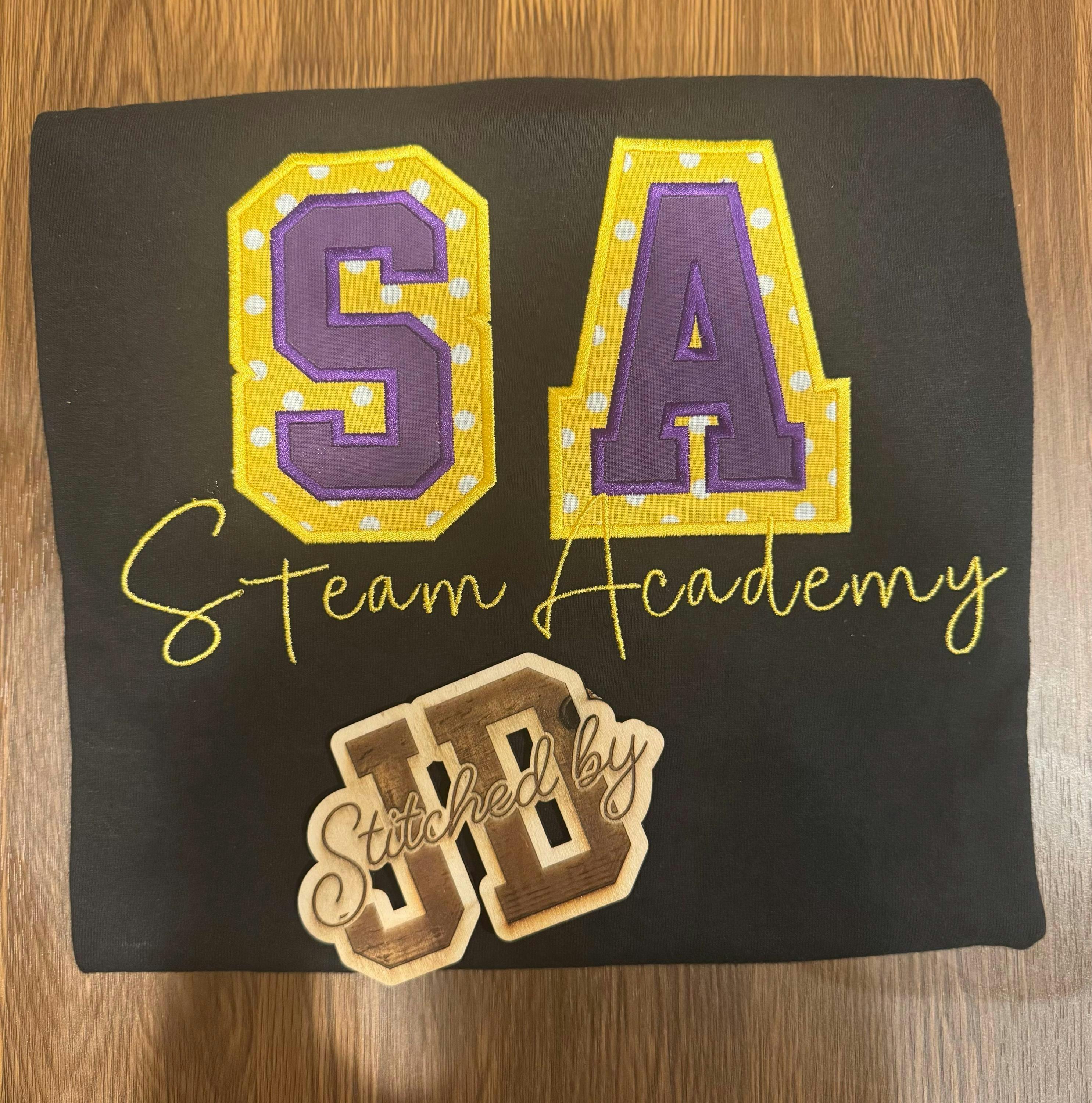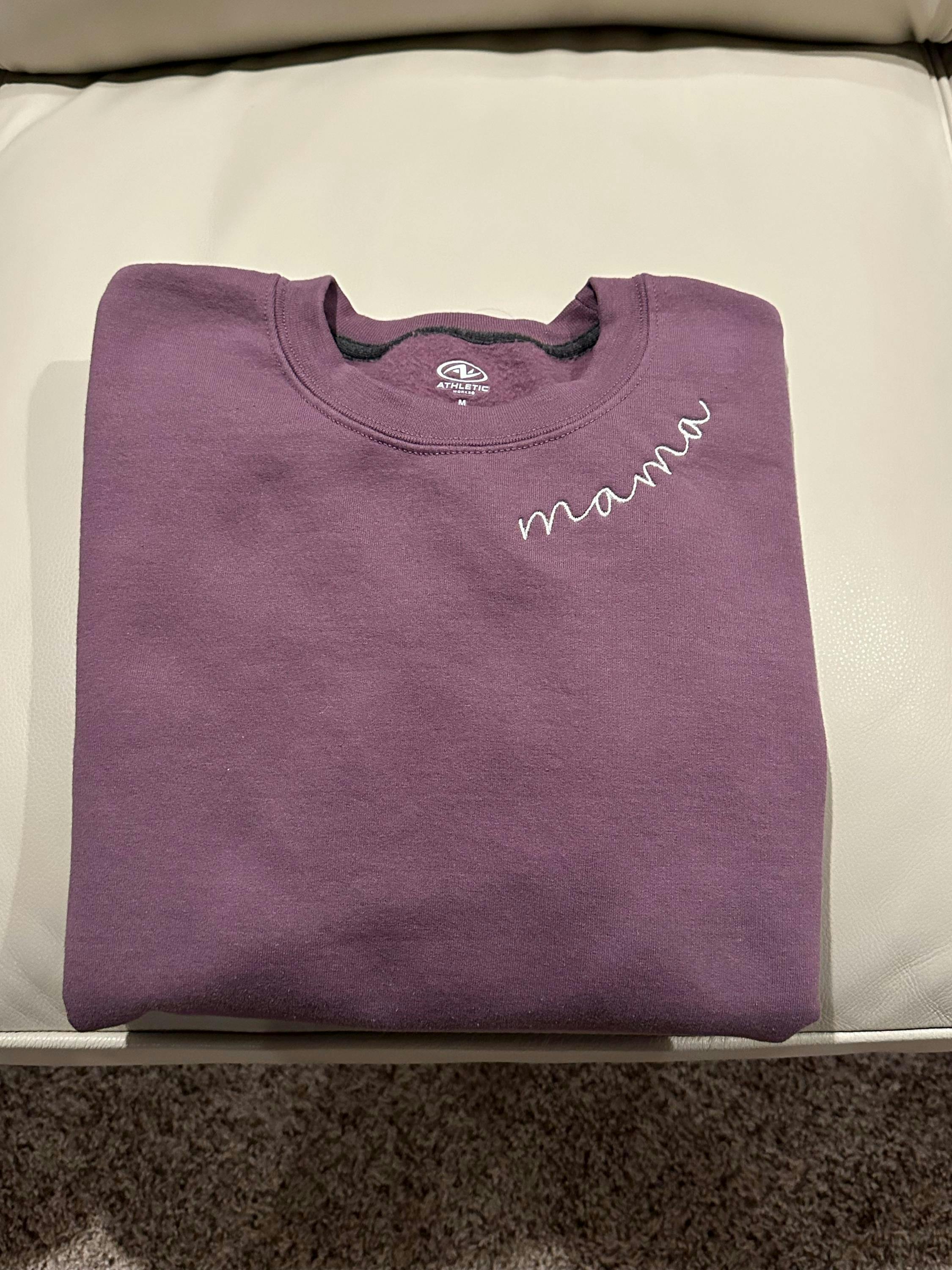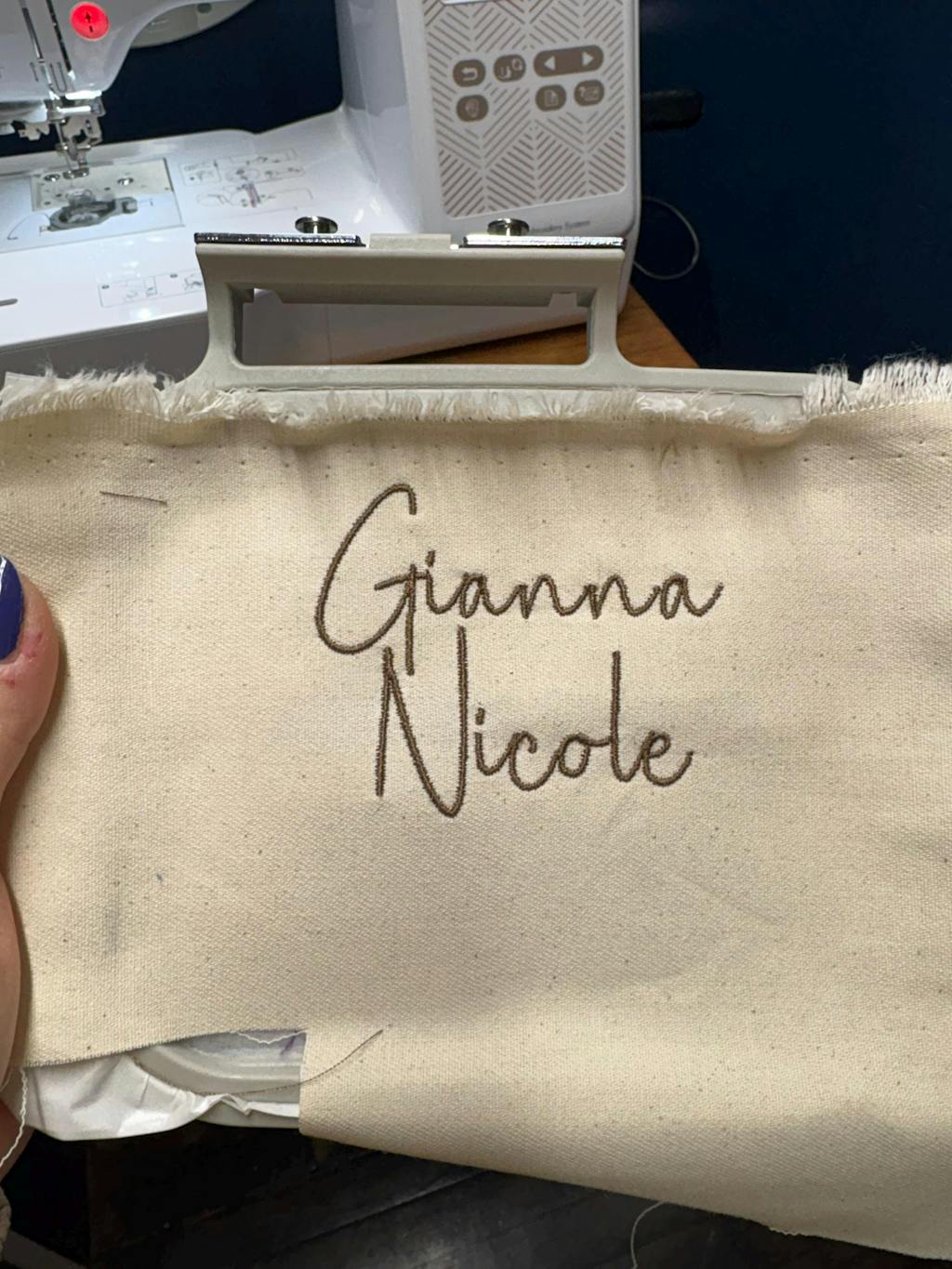
Photograph of Daydream embroidery font
Photograph of Daydream embroidery font alphabet
Daydream Digital Embroidery Font
Introducing Daydream embroidery font, the perfect addition to your creative toolkit. With its intricate and elegant design, Daydream allows you to add a touch of whimsy and charm to any project. Whether you're creating personalized gifts, embellishing clothing, or adding a special touch to your home decor, Daydream is sure to make your designs stand out. This machine embroidery font is easy to use and produces beautiful results, giving you the confidence to take your embroidery to the next level. Let your imagination run wild and create your own dreamy masterpiece with Daydream embroidery font.
Stitch Type: Satin Stitch & Split Satin Stitch